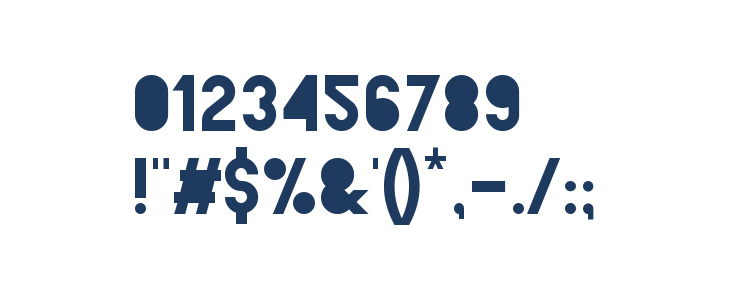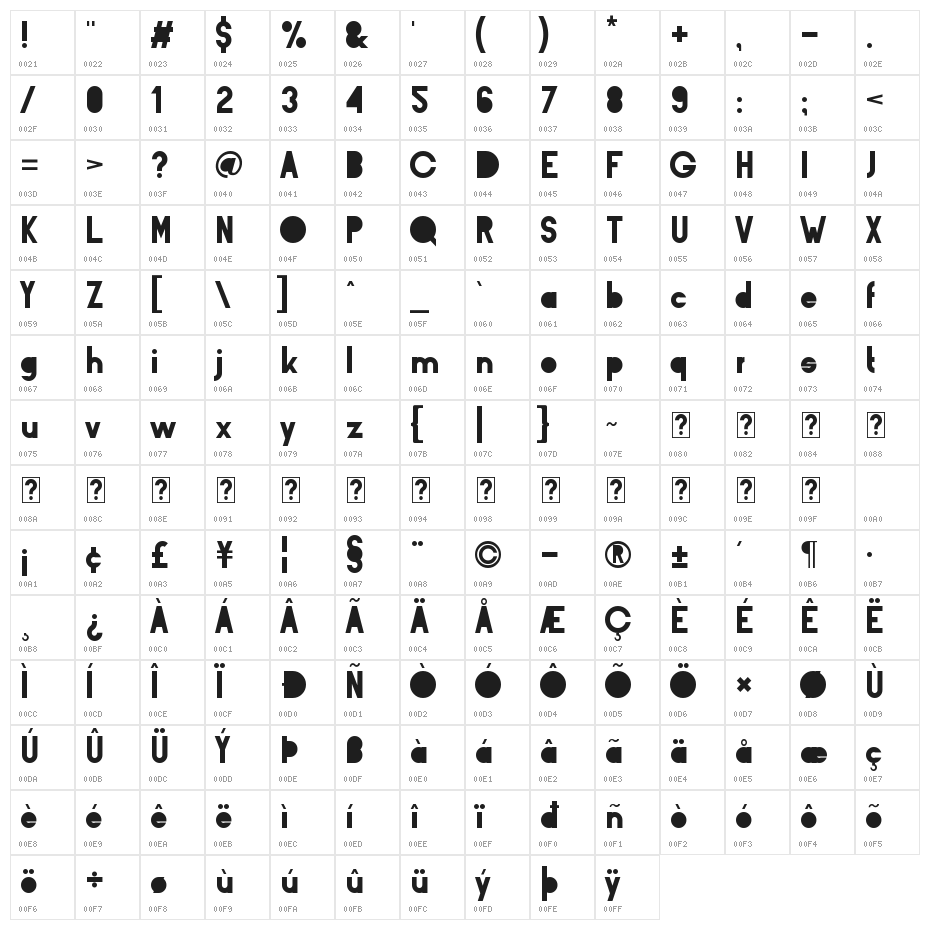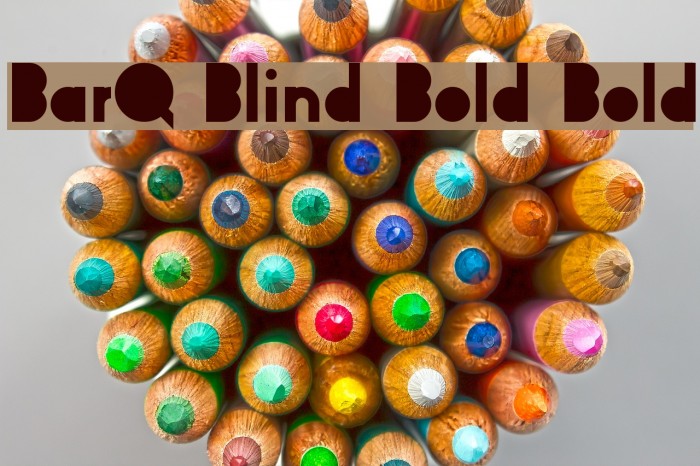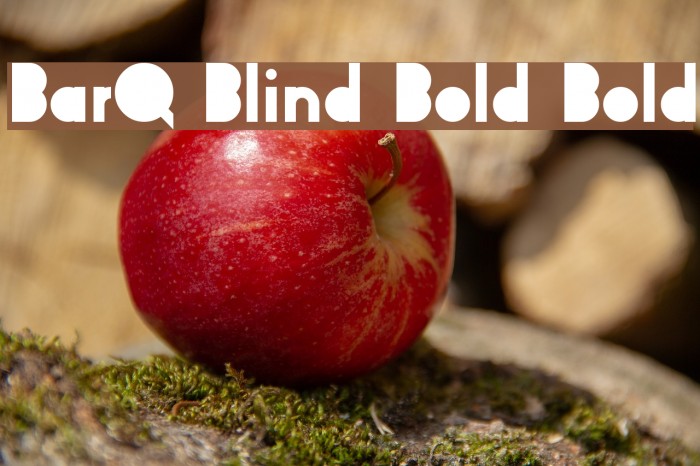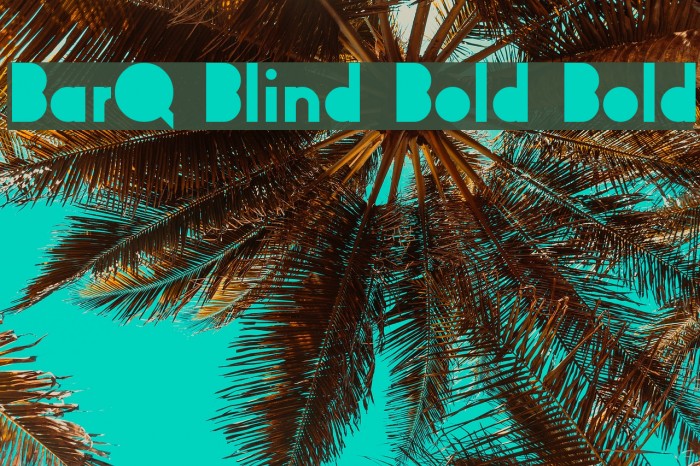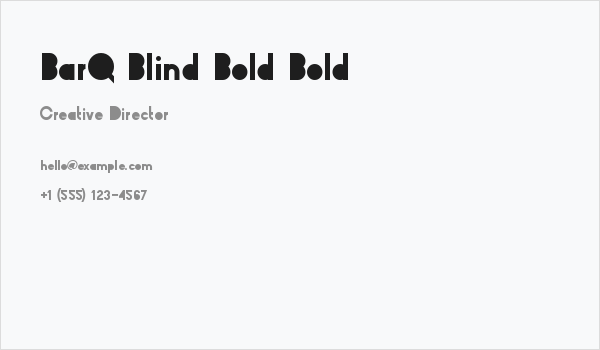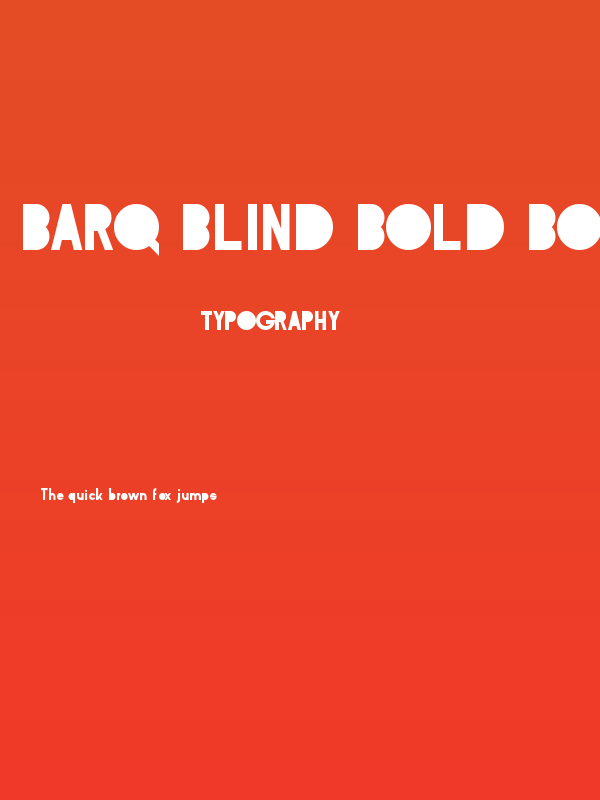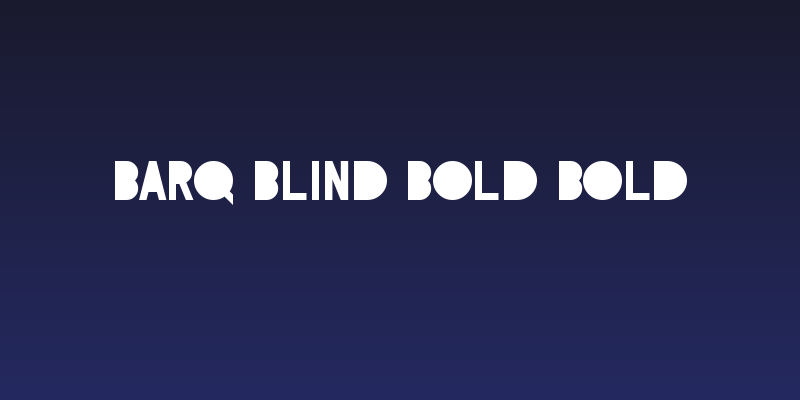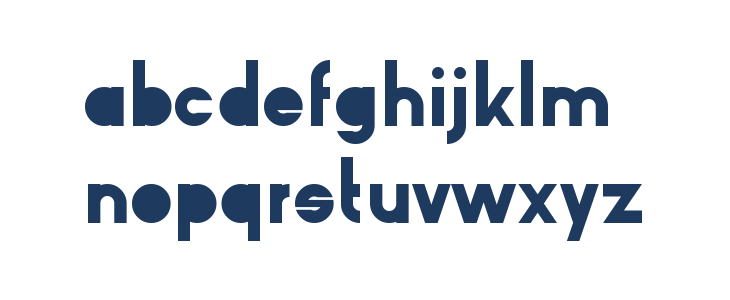
BarQ Blind Bold Bold Font
BarQ Blind Bold Bold Description
This font features a bold and striking design with geometric elements, characterized by thick, uniform strokes and a strong presence. The uppercase letters are particularly bold, with a modern and slightly futuristic appearance. The lowercase letters maintain the boldness but offer a softer, more rounded look. Numbers and special characters are consistent with the overall bold style, ensuring readability and impact. The font's design is clean and minimalistic, making it suitable for a variety of applications where a strong visual statement is needed.